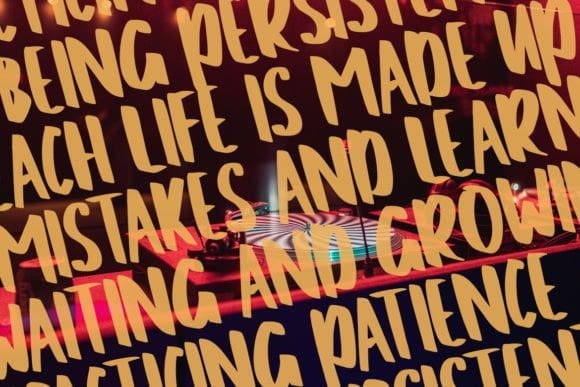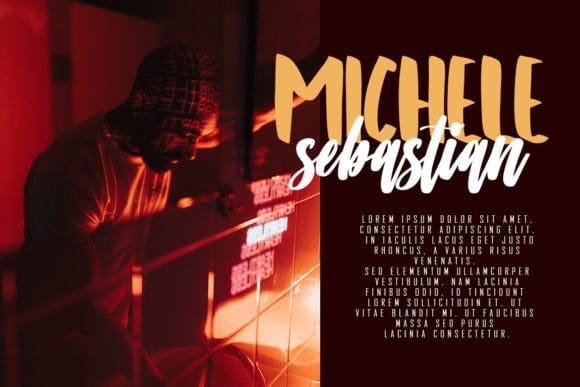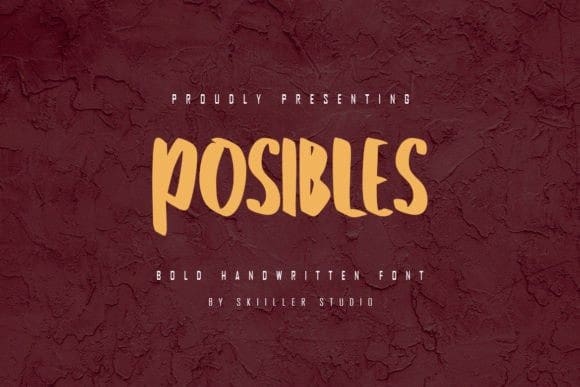
Posibles Brush Font
Posibles Brush Font is a bold and cool handwritten font, suitable for your most creative projects and ideas! Try it on logos, letterheads, product packaging, branding, magazine titles, and many others.